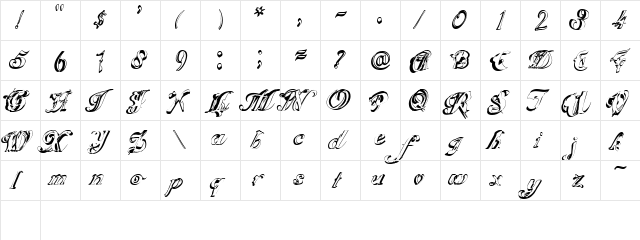
ScripteriaGummy Regular
Design Context for ScripteriaGummy Typeface
ScripteriaGummy flows with the natural rhythm of handwritten lettering, making it ideal for designs that call for warmth and personal expression.
Font Pairing: Combine ScripteriaGummy with a simple geometric sans for maximum contrast — the tension between flowing curves and clean structure is a classic typographic pairing.
Pro Tip: Use ScripteriaGummy for short runs of text — names, titles, or taglines. Extended body copy in script faces tires the eye quickly.